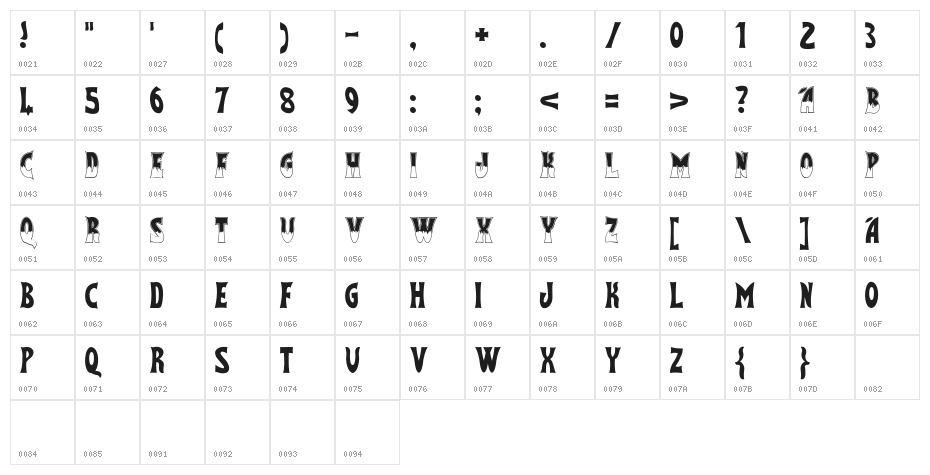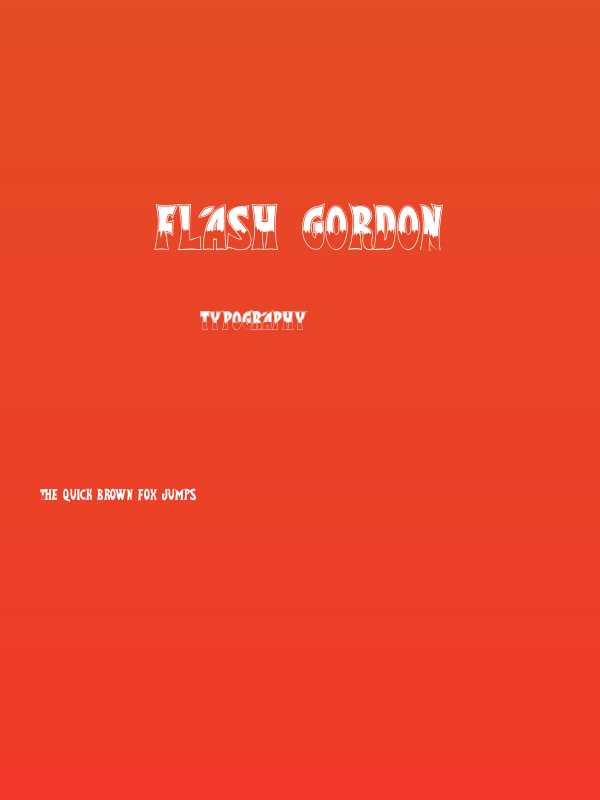
Flash Gordon Font
Flash Gordon Description
This font features a bold and dynamic design with a distinct retro-futuristic flair. The uppercase letters are characterized by sharp, angular lines and a unique gradient effect that gives the impression of movement or speed. The lowercase letters maintain the same energetic style, ensuring consistency throughout. Numbers and special characters are equally bold, with a playful yet powerful presence. The overall aesthetic is reminiscent of classic comic book titles, making it ideal for projects that require a sense of adventure and excitement.
Overall StyleRetro, Futuristic, Comic
Proposed ProjectsIdeal for comic book titles, retro-themed posters, video game graphics, and branding that requires a bold, adventurous look.